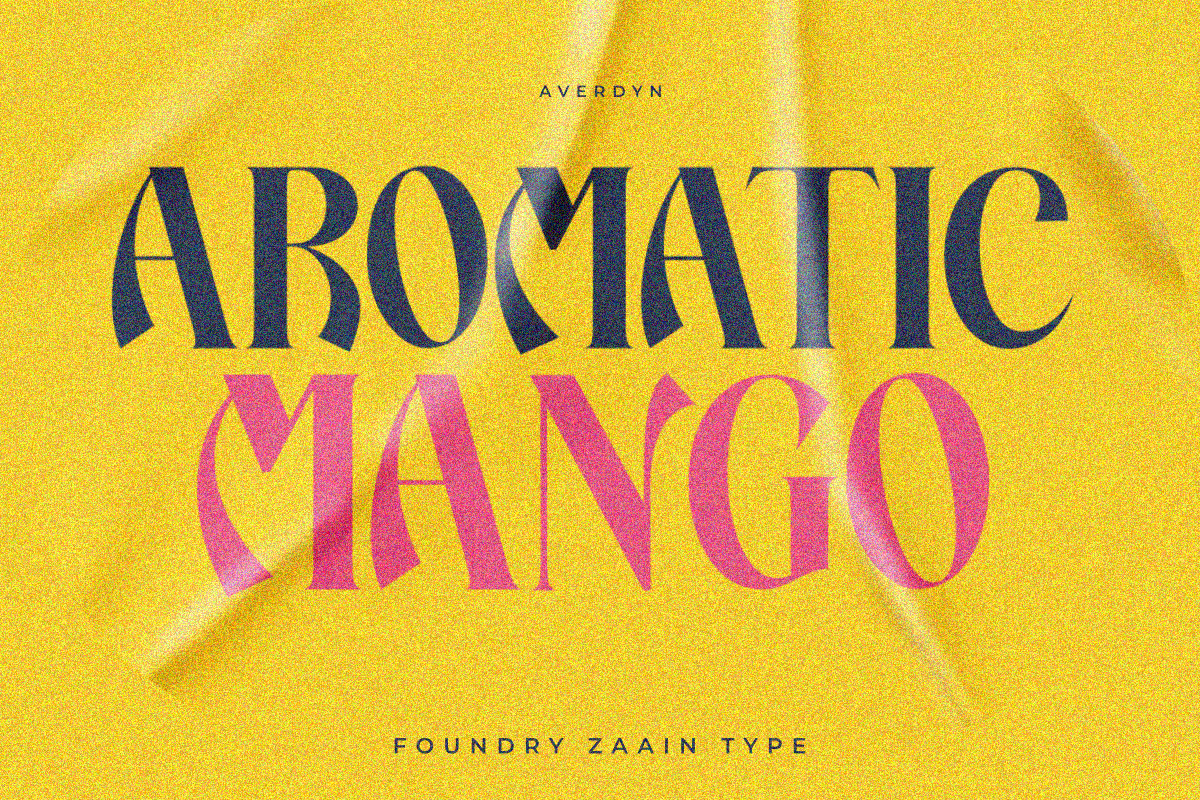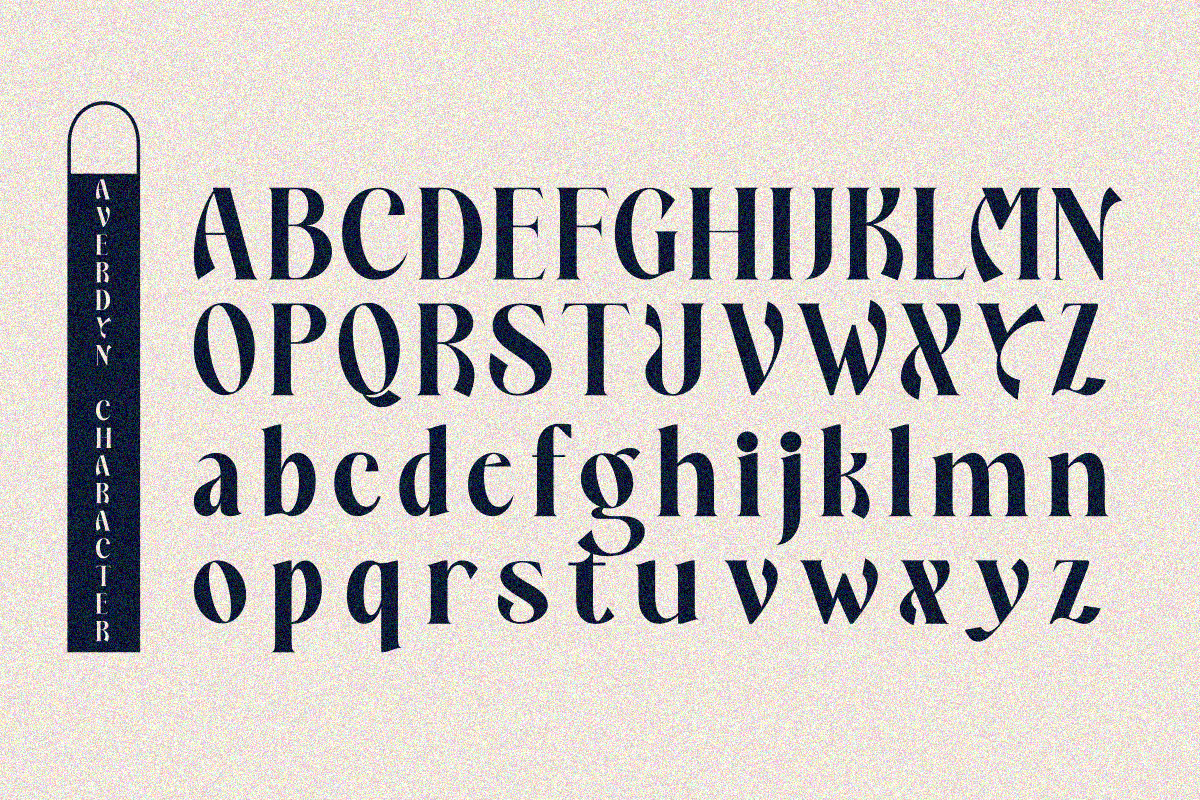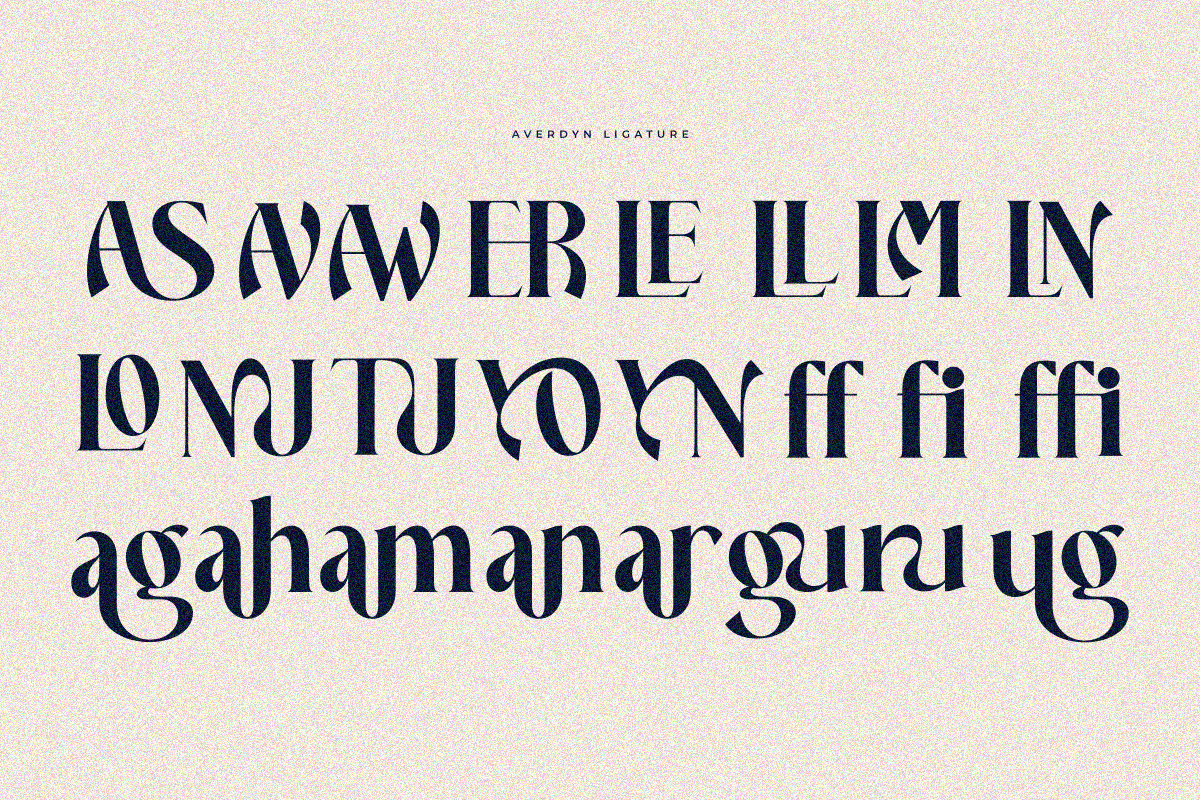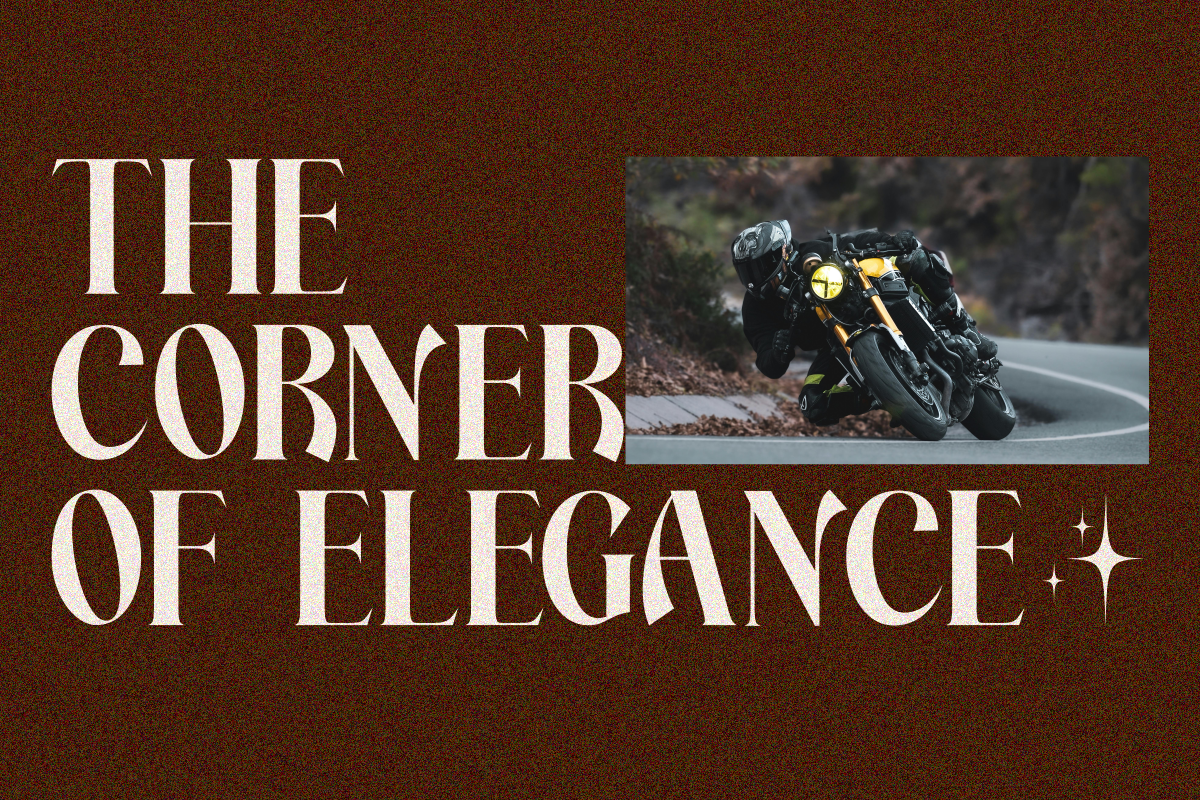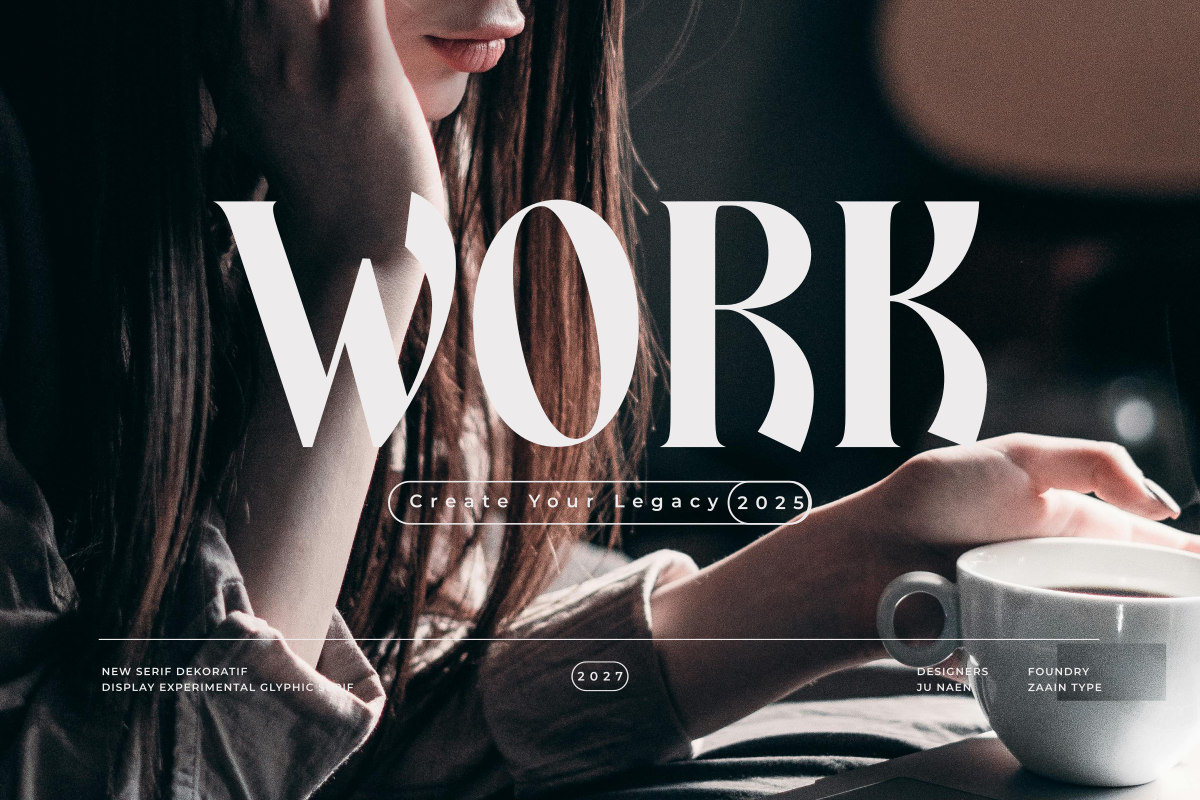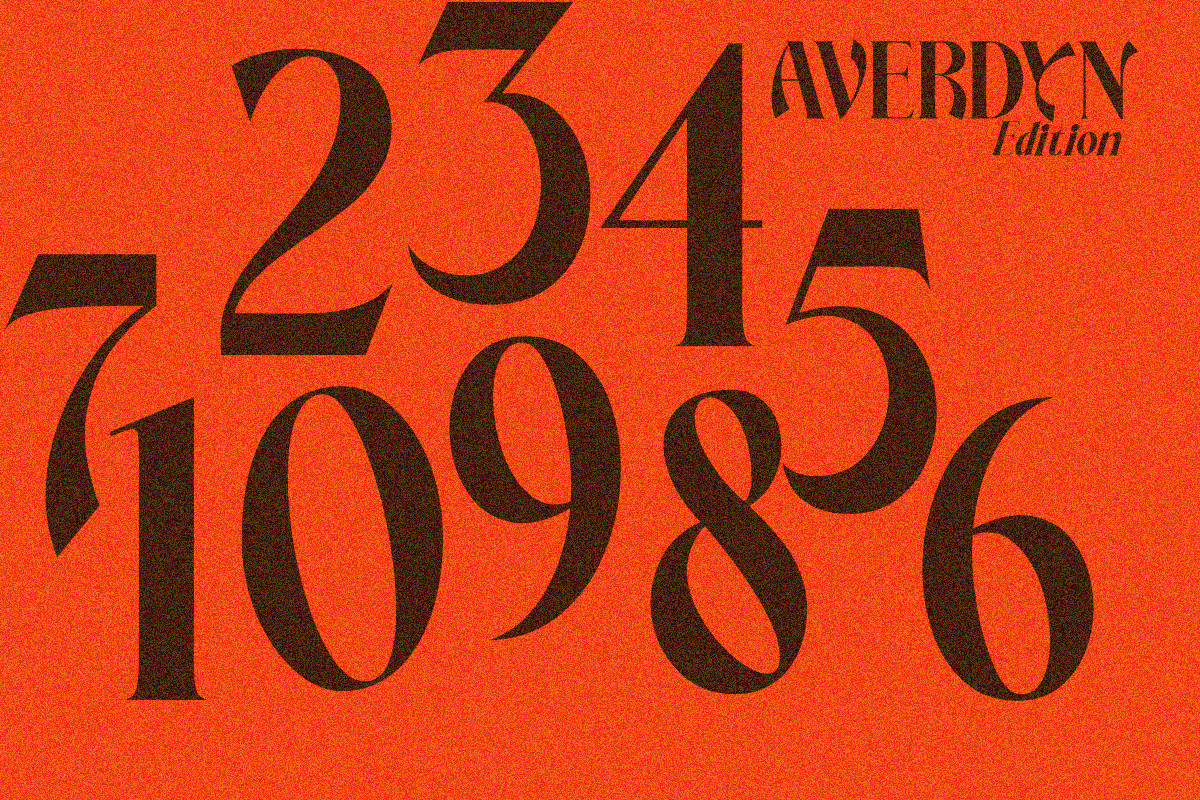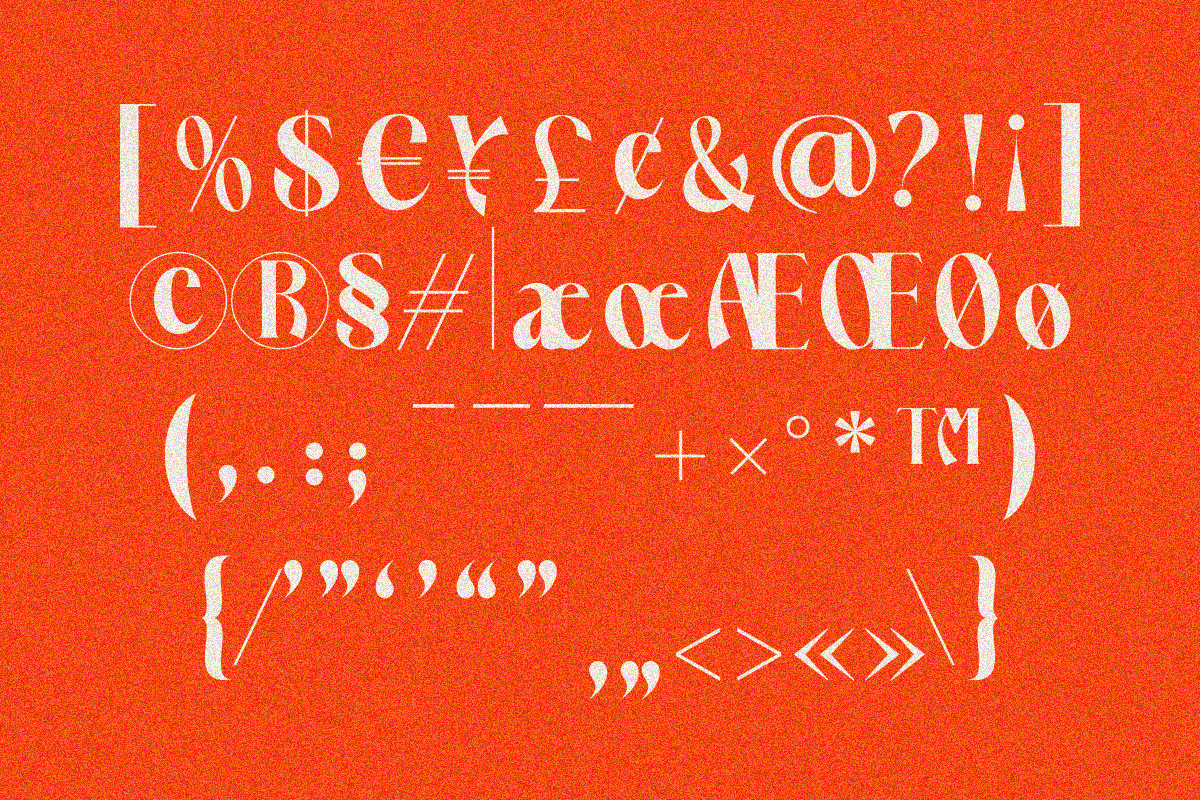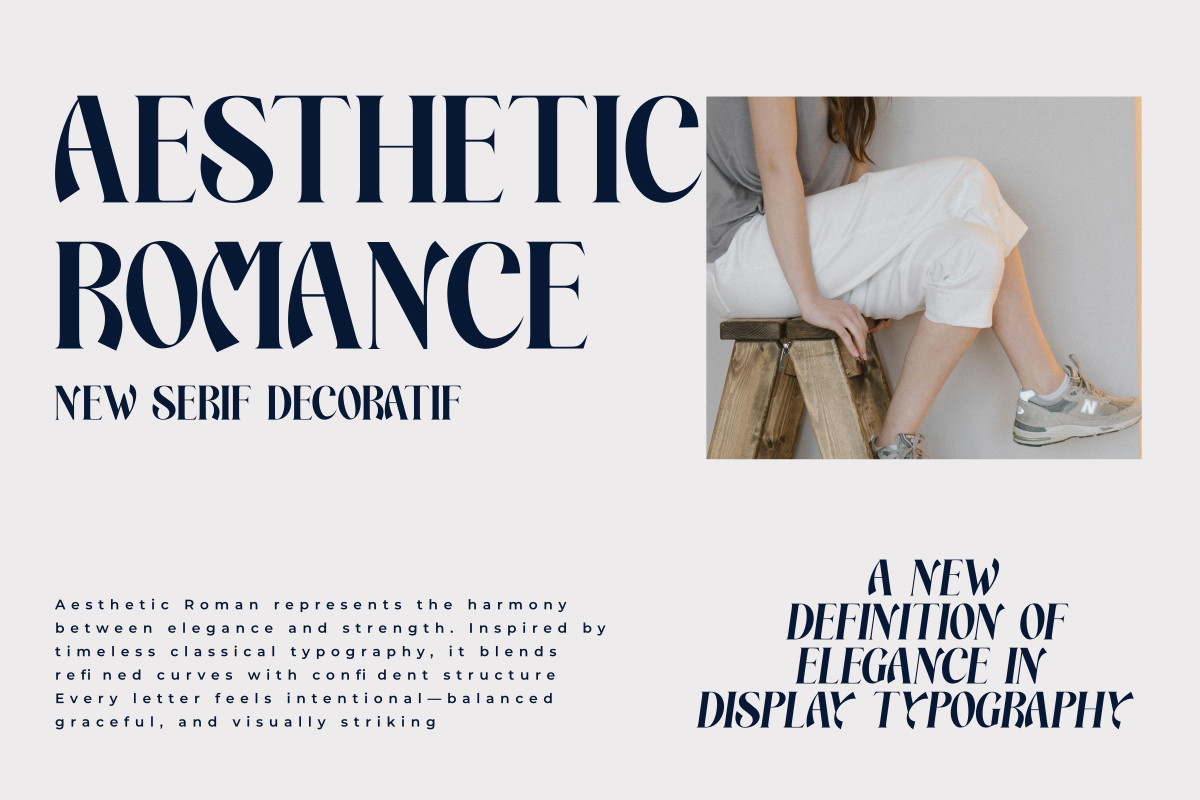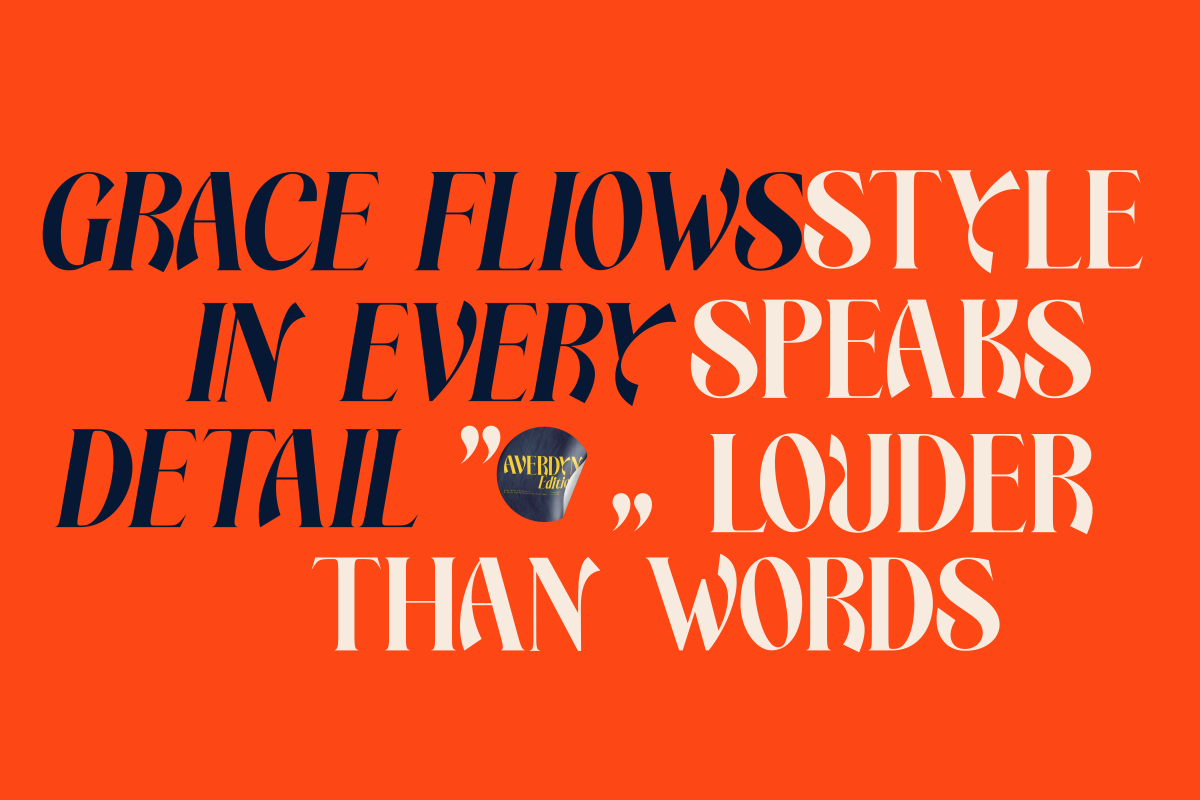
Averdyn
Averdyn is a decorative display typeface with a bold, artistic personality. Each letter is crafted with distinctive details, combining modern aesthetics with an elegant visual presence. Averdyn works beautifully for logos, branding, packaging, editorial designs, posters, and any headline that needs a striking, expressive look.
Its confident shapes and subtle decorative accents make Averdyn stand out while still maintaining excellent legibility. This font is the perfect choice for designers seeking a unique display typeface with a premium and memorable character